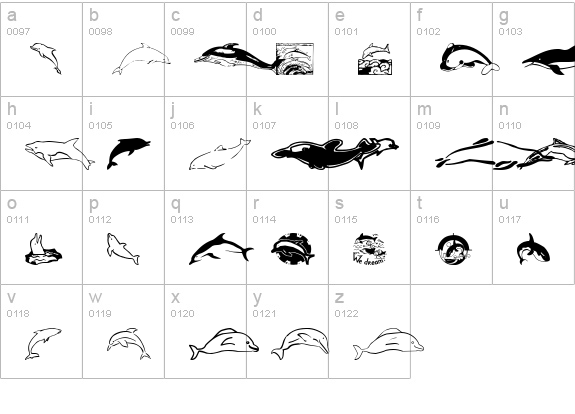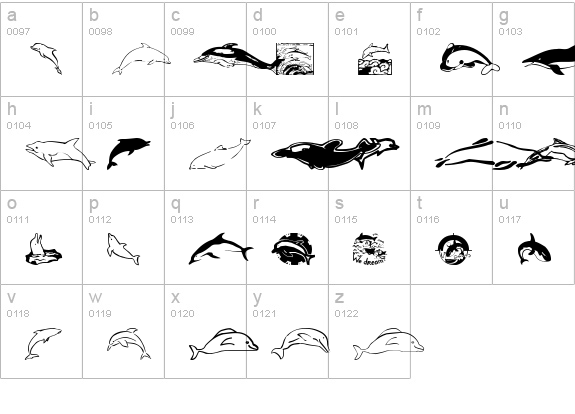
Dolphins Font Details
Introducing Dolphins font, a playful and charming typeface that exudes a sense of whimsy and creativity. Dolphins font features sleek lines and smooth curves that give it a modern and stylish appearance. Perfect for a variety of design projects, from invitations to branding to social media graphics, Dolphins font will add a touch of fun and flair to your creations. Best of all, Dolphins font is completely free to download at FontsMarket.com. Don't miss out on this fantastic opportunity to enhance your designs with this delightful and versatile font. Download Dolphins font today and let your creativity soar!